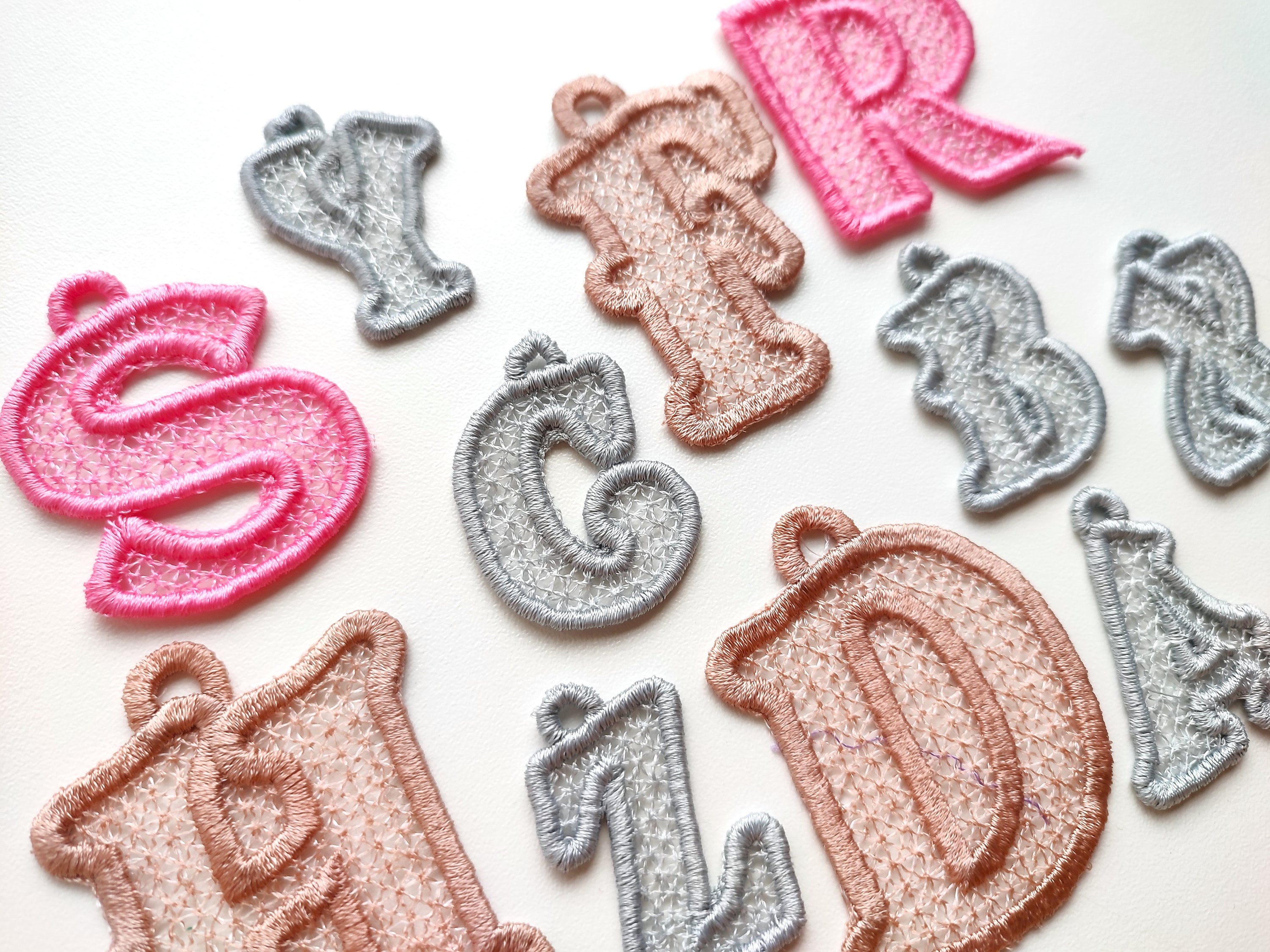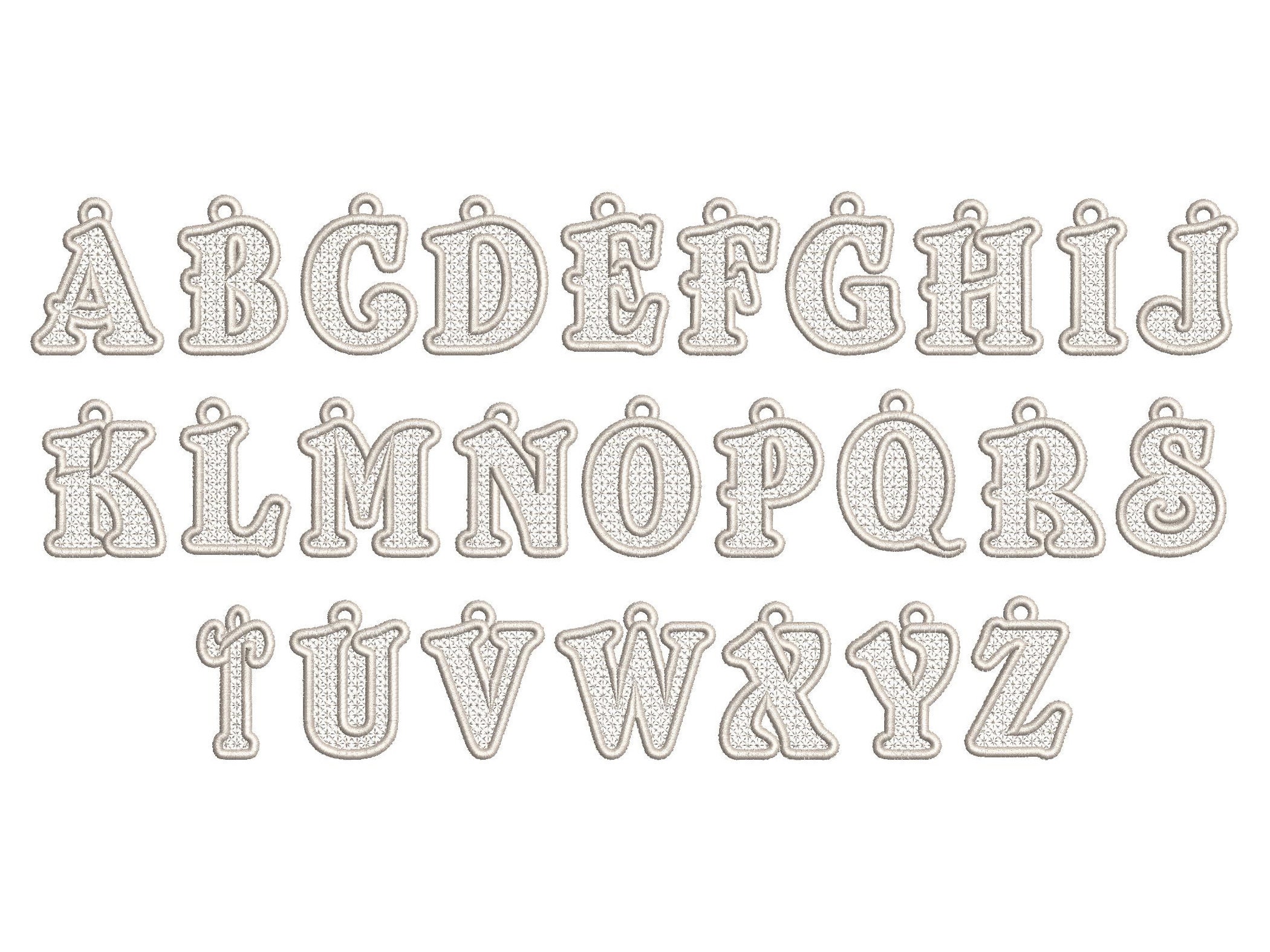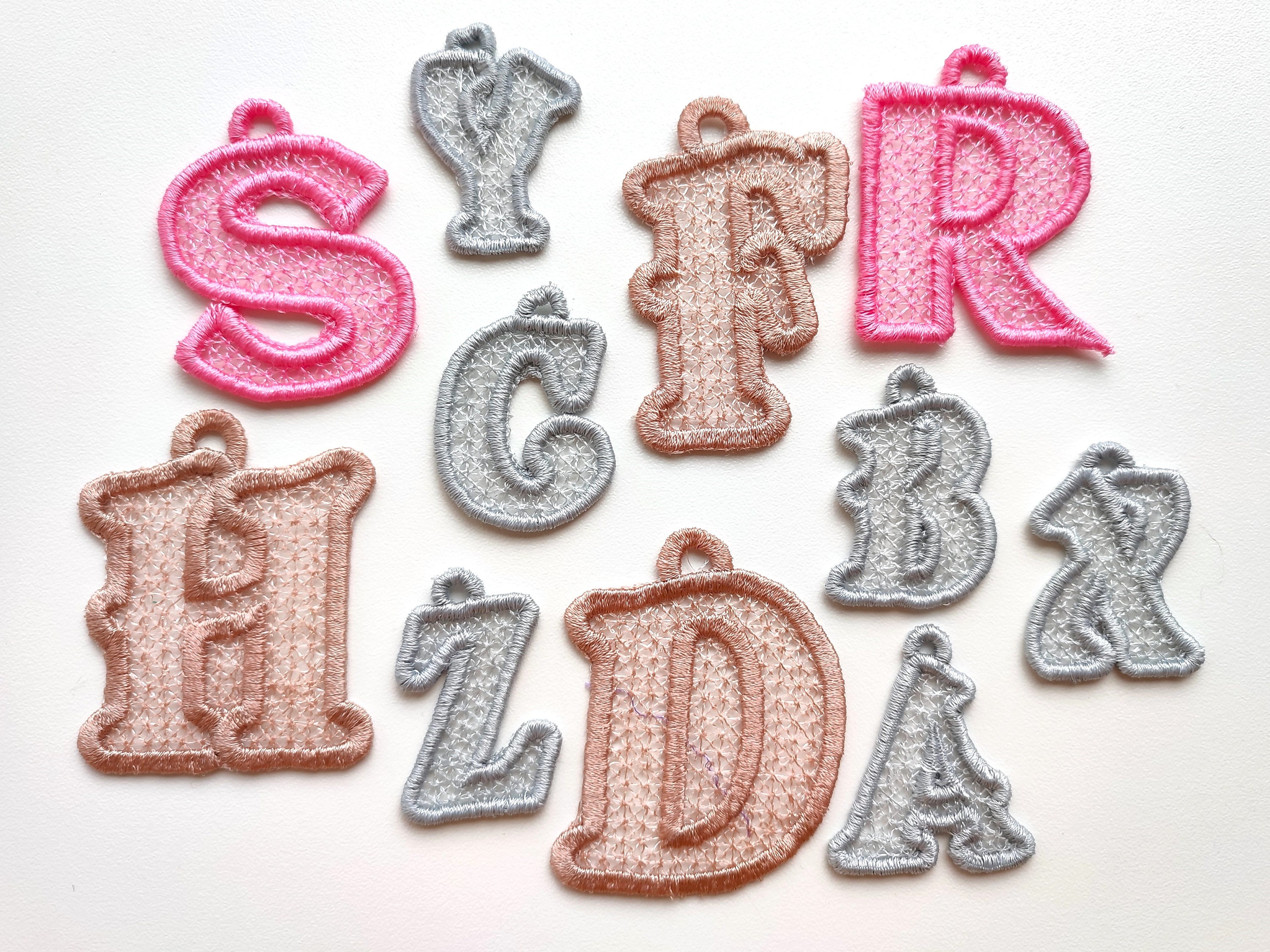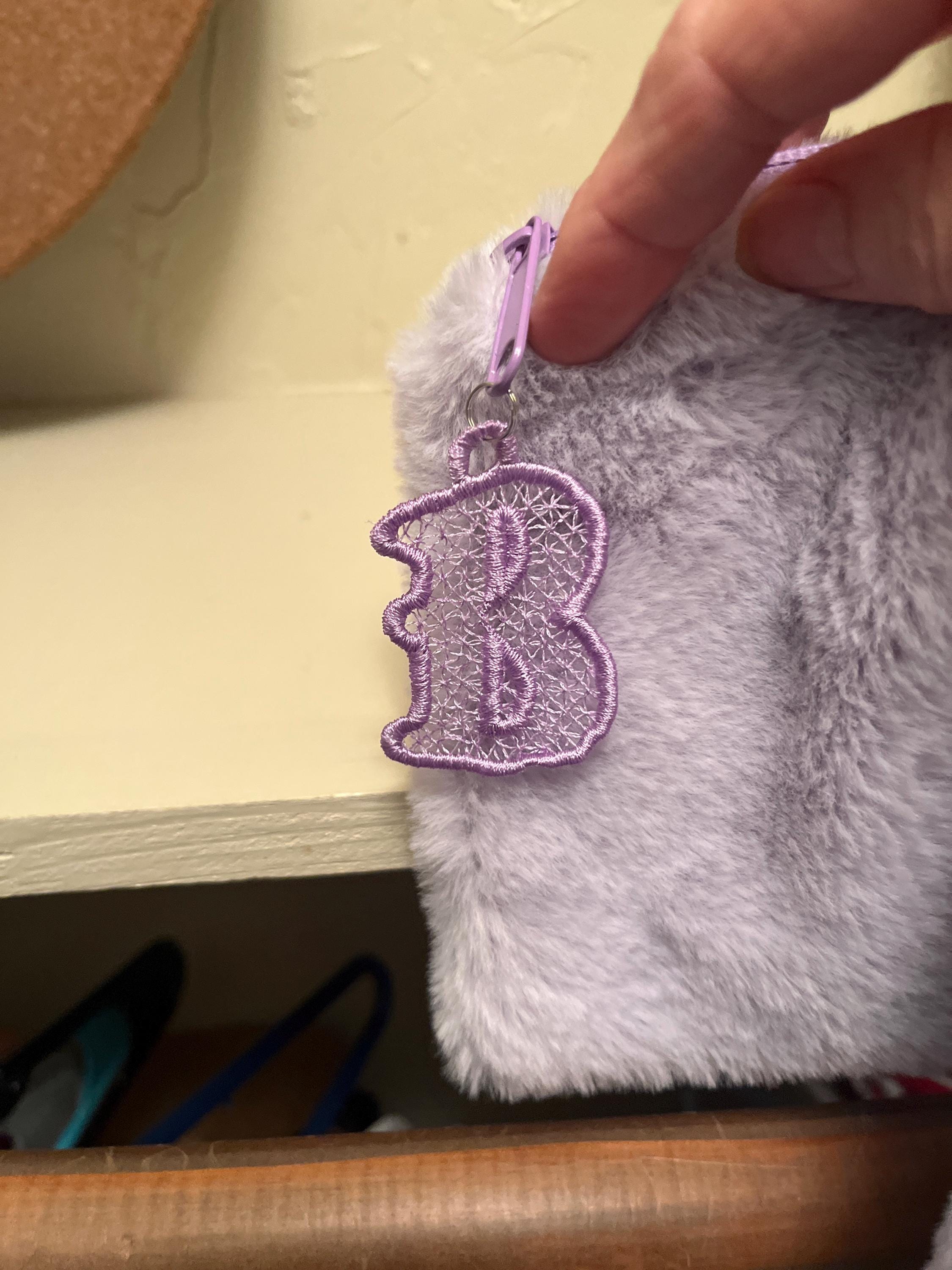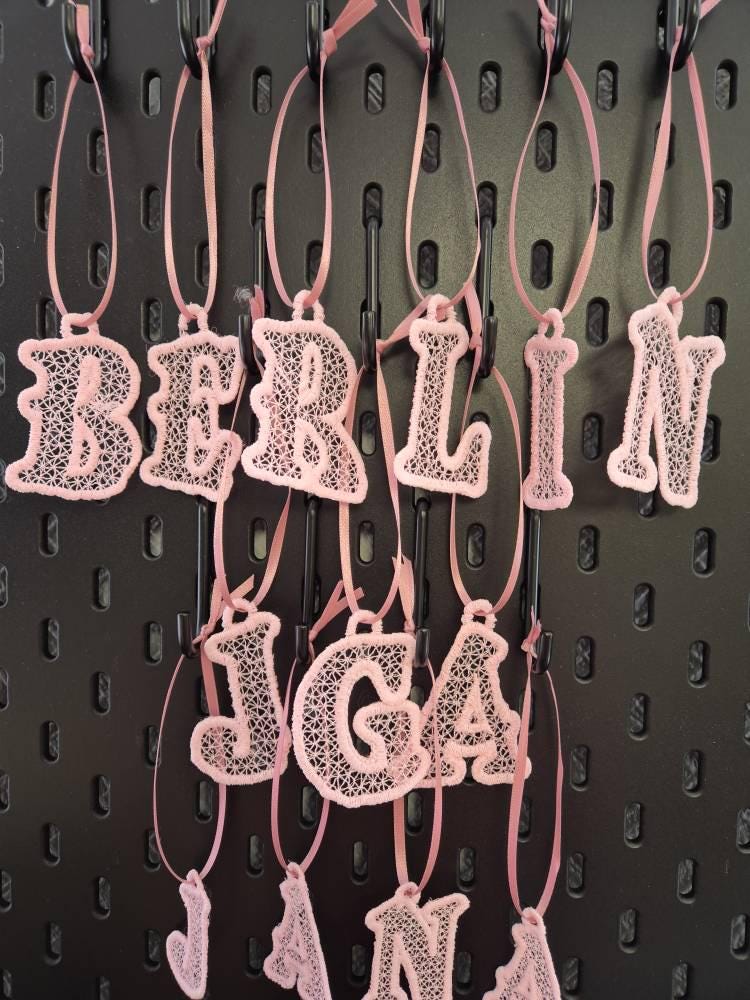
Lace Font FSL free standing lace Hanging Monogram initial letters machine embroidery designs, lacy alphabet in assorted sizes, BX included
Uppercase A-Z
Freestanding lace! The letters are stitched onto a non-woven water-soluble stabilizer.